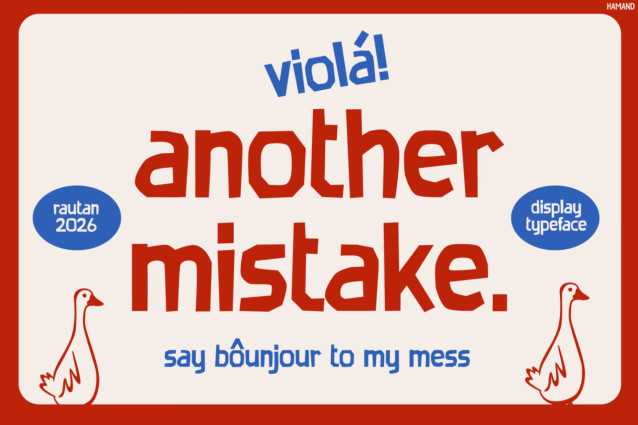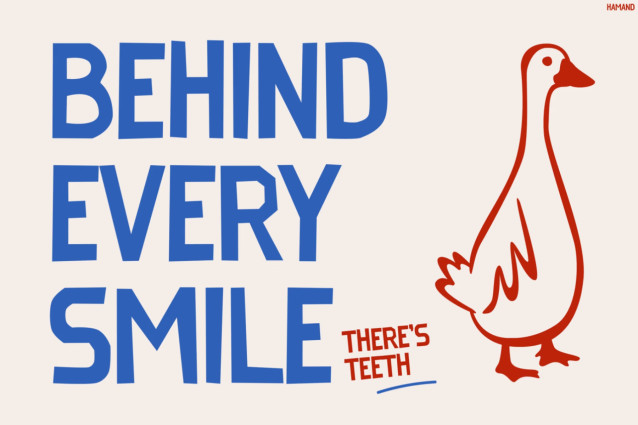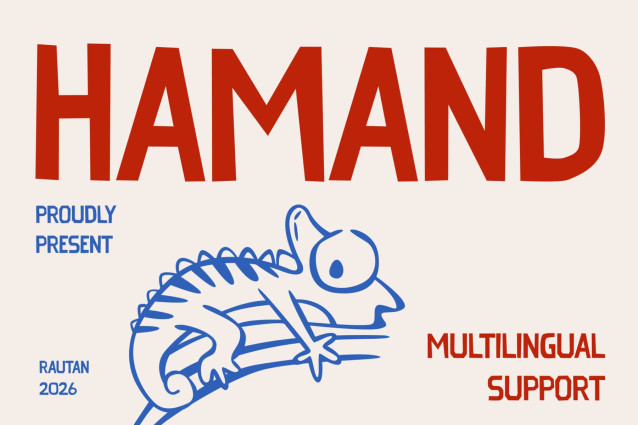
Hamand – Quirky, Vintage & Playful Display Style
Retro Font Hamand delivers a bold retro look with a quirky personality. Its condensed shapes, slightly imperfect edges, and playful letterforms create a distinctive vintage aesthetic. At the same time, its strong display presence keeps headlines clear, bold, and easy to notice. Plus, the font includes Multilingual Support for 67 languages, so it works well for both local and international creative projects.
First of all, Hamand is designed to make ordinary words feel more expressive. Because of its bold structure and hand-crafted character, it adds instant personality to posters, branding, packaging, apparel, stickers, badges, quotes, and social media graphics. Moreover, its retro-inspired style works beautifully for nostalgic concepts, playful campaigns, and creative editorial designs. As a result, you can create visuals that feel fun, memorable, and full of attitude.